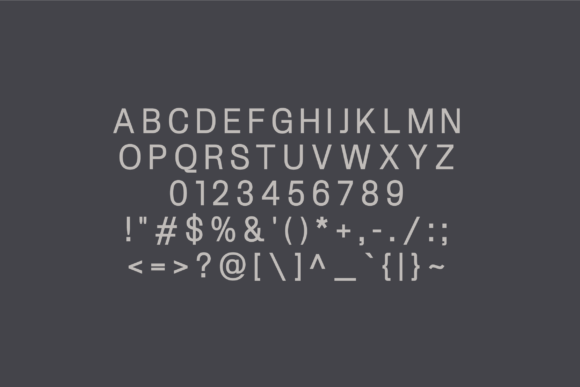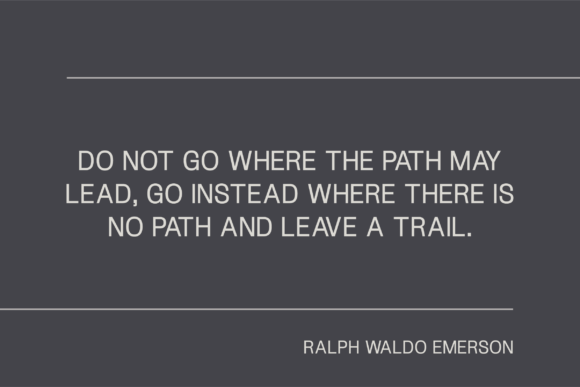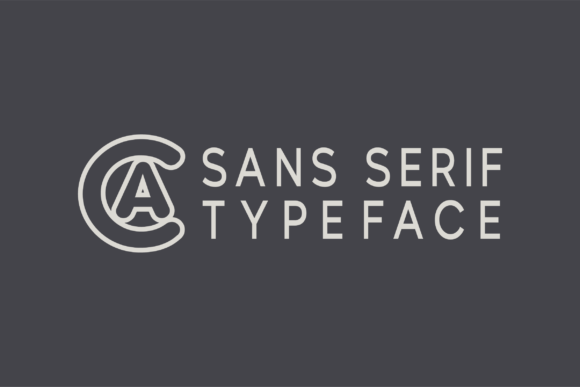
Unveiling the Elegance of Klymenor Font
As a designer, you know that the perfect font can elevate your creative project from ordinary to extraordinary. Have you ever found yourself staring at a blank canvas, searching for the perfect typeface to bring your vision to life? For those moments when inspiration strikes, we’re excited to introduce the Klymenor Font – a stylish and contemporary sans serif typeface that’s sure to captivate your audience.
With its sleek design and high-quality glyphs, Klymenor Font is an invaluable design resource for professionals seeking a typeface that can excel across diverse platforms. From logo creation to commercial advertisements, this versatile font adds a touch of sophistication and readability to every stroke. Whether you’re working on a free download or a high-end project, Klymenor Font is the perfect choice for designers who demand the best.
Key Features of Klymenor Font
• High-quality design resource ideal for creative projects
• Supports a wide range of languages and character sets
• Designed with a unique, modern aesthetic and style
• Perfect for use in graphic design, branding, and digital art projects
Honest Review: Klymenor Font
I recently came across the Klymenor Font while searching for high-quality design resources for my creative project. I was impressed with the clarity and legibility of this font, making it perfect for a wide range of applications.
Here are some of the things that work well about the Klymenor Font: ✨
• High-quality design: The font is well-crafted and visually appealing, making it a great addition to any design project.
• Transparent background: The font comes with a transparent background, making it easy to use in various design scenarios.
However, there are a few limitations to keep in mind: ⚠️
• Limited font styles: The Klymenor Font only comes in a few styles, which may limit its versatility for some designers.
• Not suitable for body text: Due to its unique design, the font may not be the best choice for large blocks of body text.
Overall, I’m impressed with the Klymenor Font and would recommend it to designers looking for a high-quality design resource for their creative projects. While it may have some limitations, its unique design and free download make it a valuable addition to any design arsenal.
Tips for Getting the Most Out of Klymenor Font
To get the most out of the Klymenor Font, use it in combination with a transparent background to create a clean and minimalist design. You can also experiment with different font sizes and styles to add visual interest to your design.
The Klymenor Font is ideal for use in creative projects, such as logos, branding materials, and marketing materials. Its high-quality design and transparent background make it a popular choice for designers and non-designers alike.